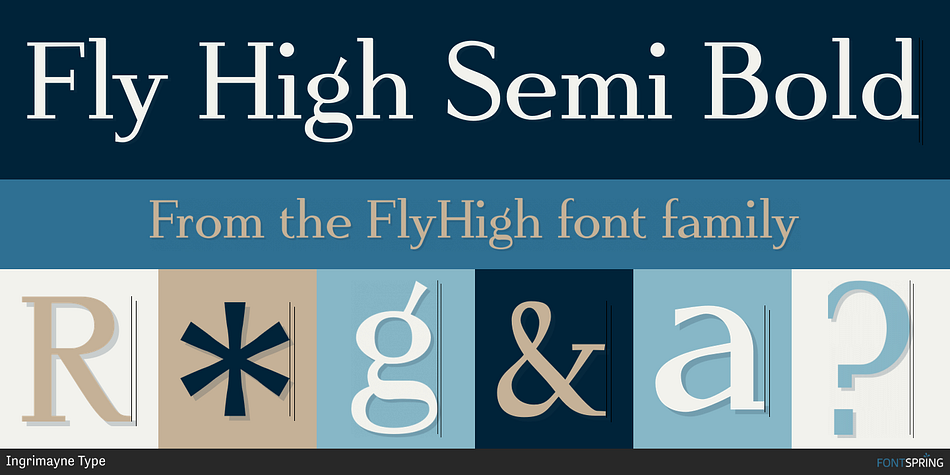
Fly High Semi Bold
Designed by Robert Schenk, FlyHigh is a slab serif font family. This typeface has eight styles and was published by Ingrimayne Type.
FlyHigh is a decorative text face with slab serifs. It comes in eight styles: plain, semibold, bold, extrabold, italic, semibold italic, and extrabold italic. Its low x-height makes it more appropriate for uses such as invitations than for book text.